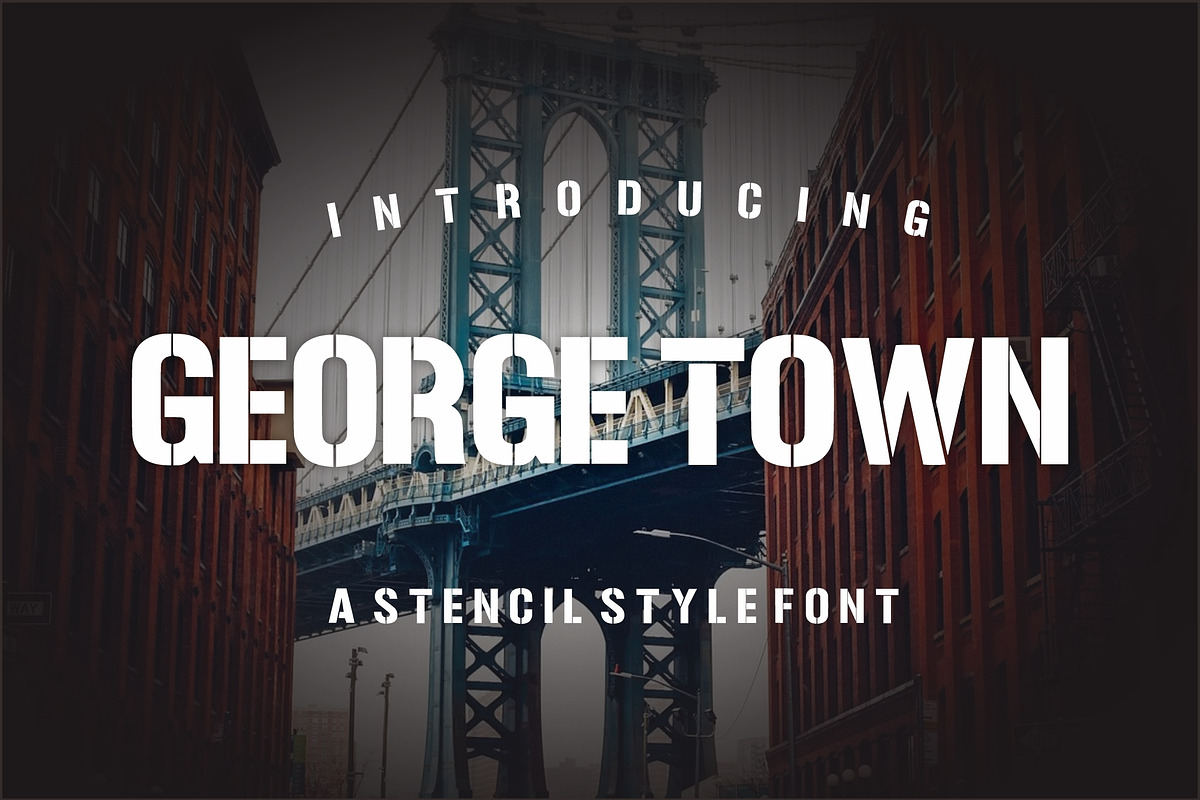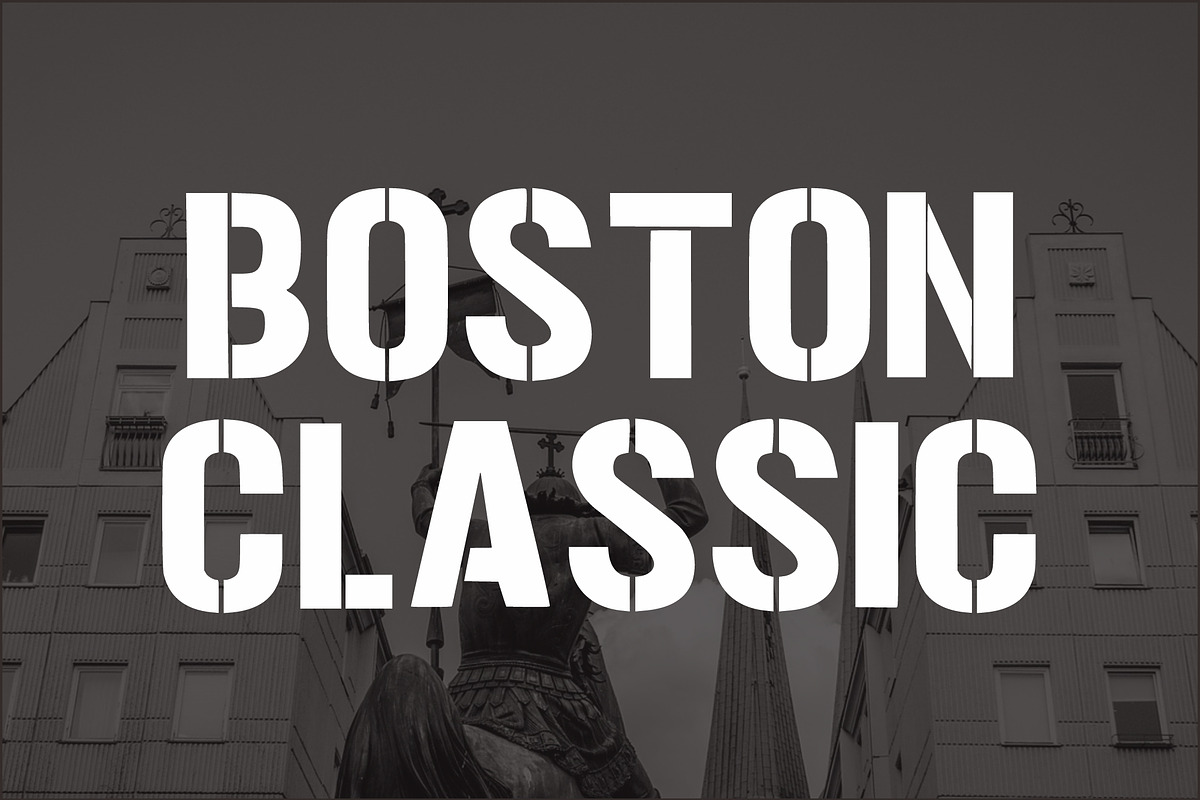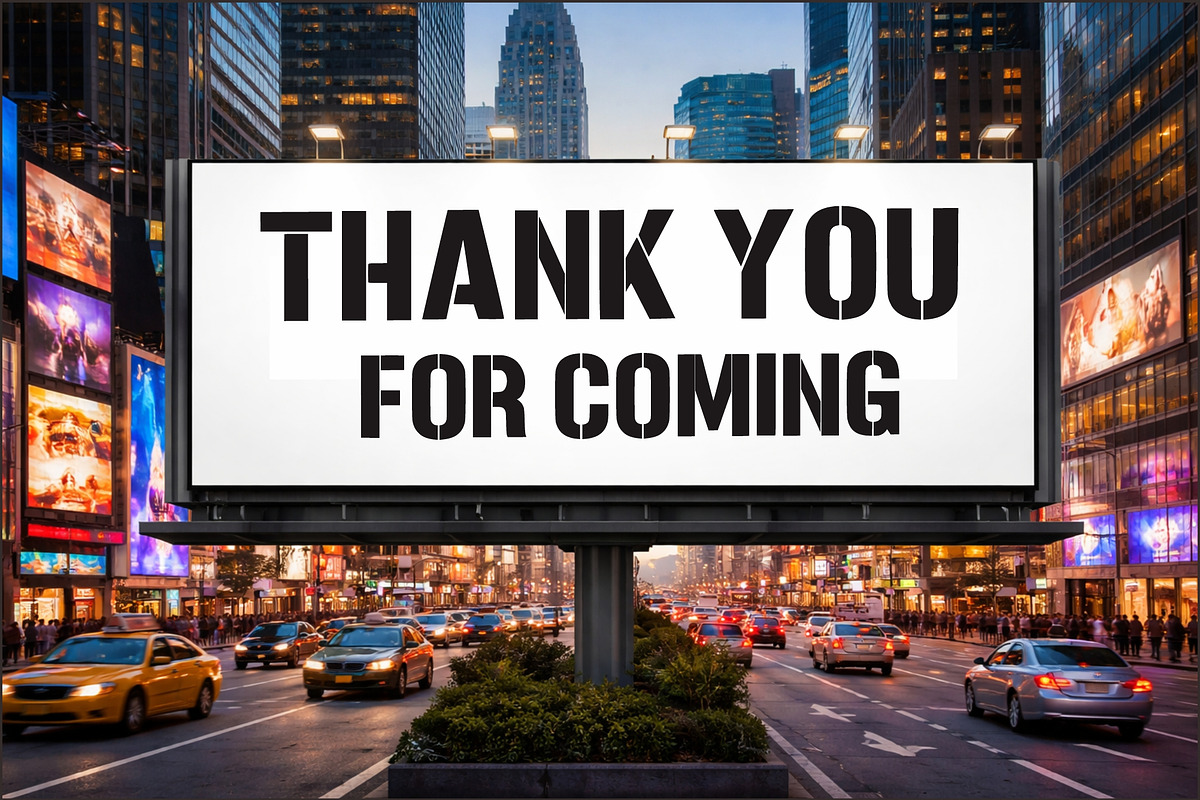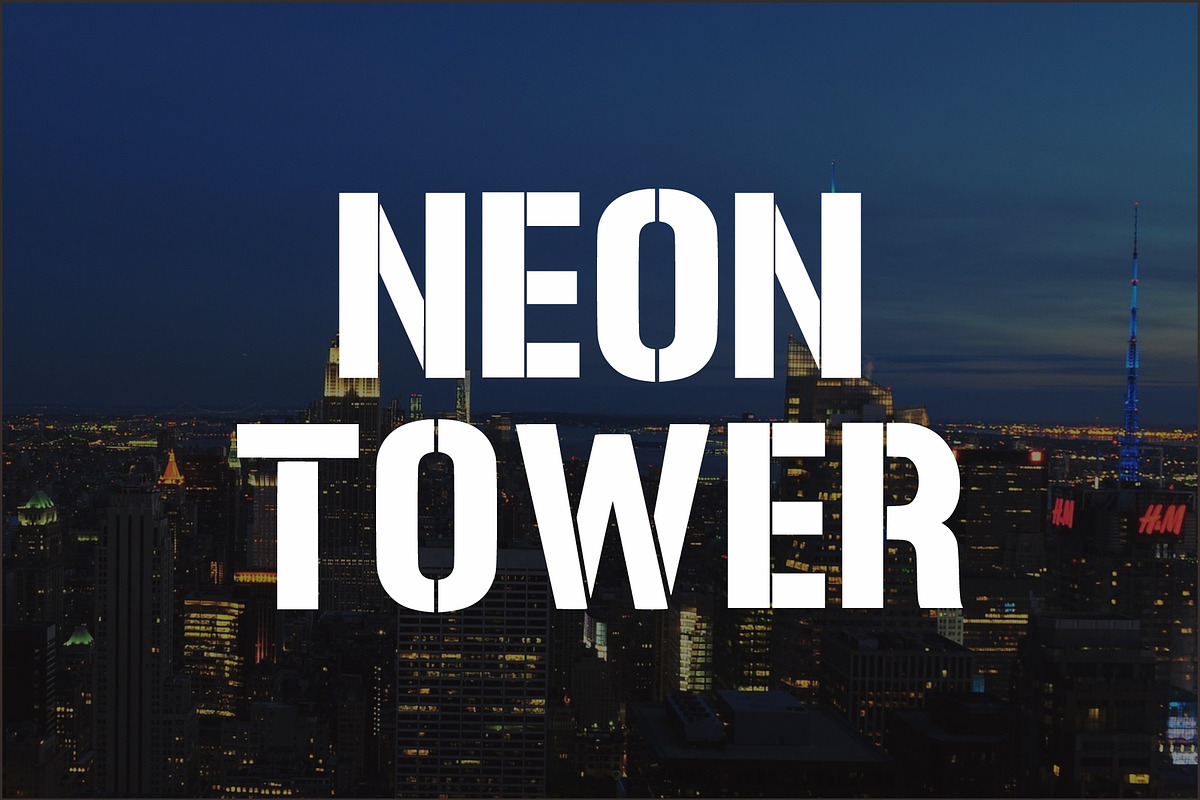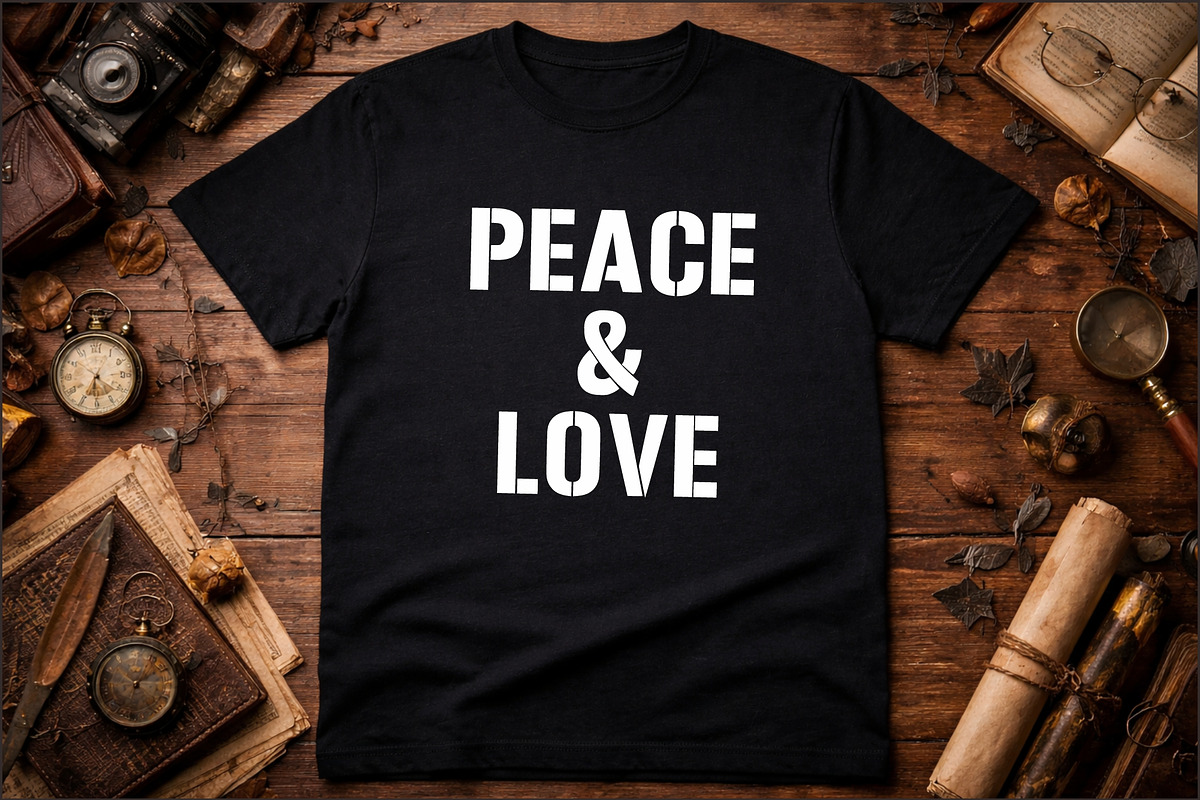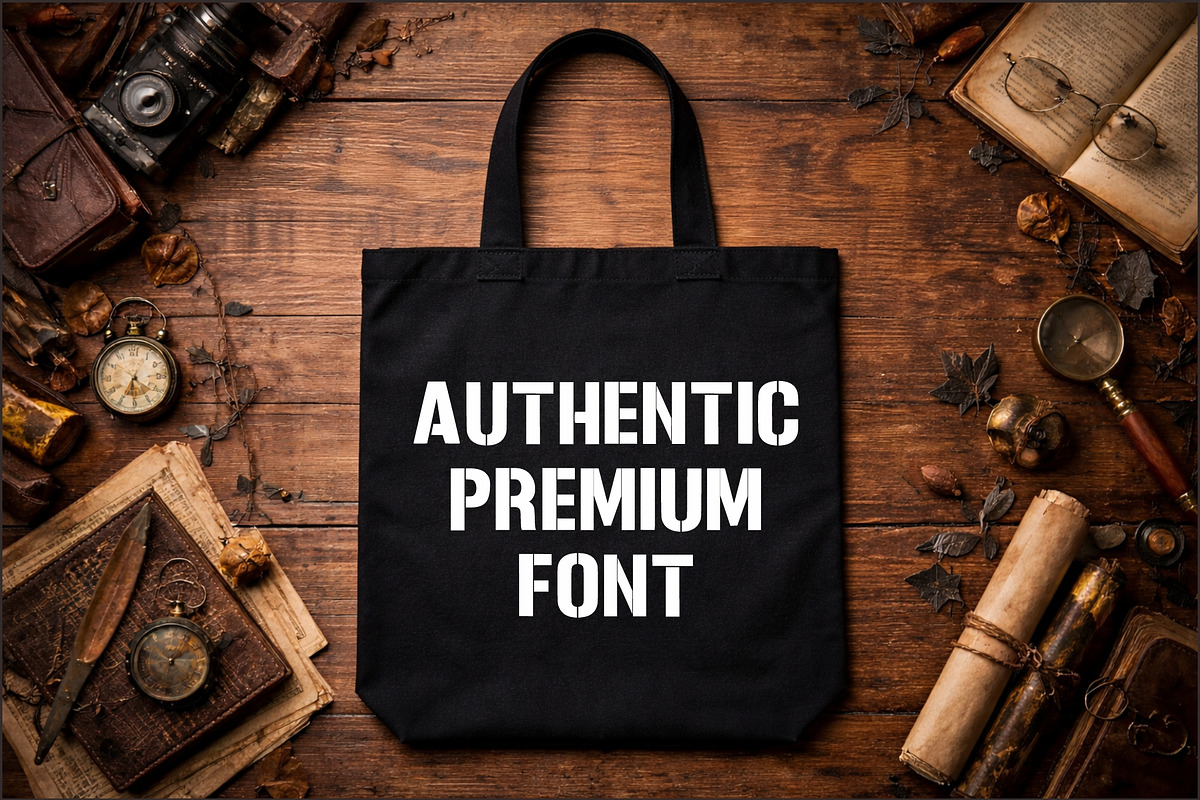
Georgetown
Urban Stencil Typeface Inspired by Classic Industrial Signage
Georgetown is a bold stencil-style display font inspired by urban architecture, industrial signage, and classic American city typography. With strong geometric shapes and clean stencil cuts, this typeface delivers a powerful and modern look that works perfectly for branding, posters, streetwear designs, logos, headlines, and editorial layouts.